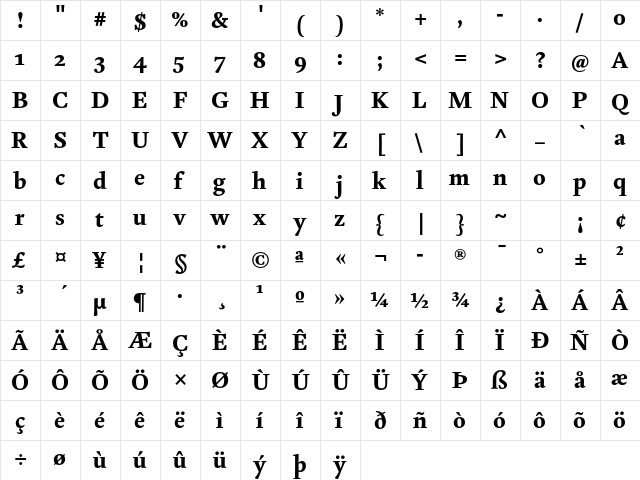
Kingfisher Heavy
| Designer | Jeremy Tankard |
Design Context for Kingfisher Typeface
Kingfisher is a composed and adaptable typeface that performs quietly and consistently across a wide range of design contexts.